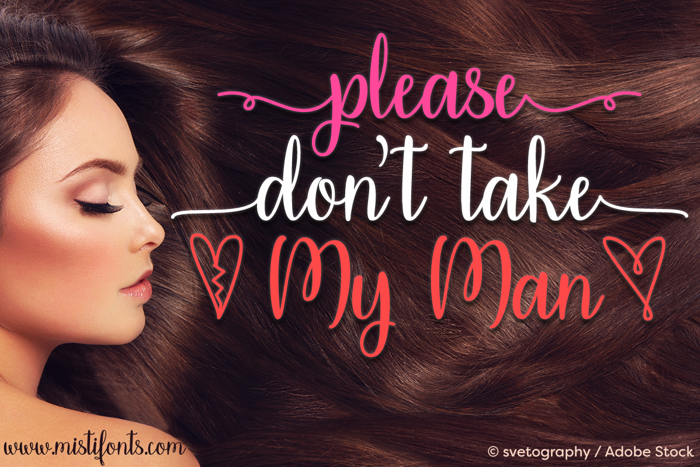
Please Dont Take My Man Font
Special Symbols:
Type * (asterisk) for the heart
Type \ (backslash) for the broken heart
Type [] (brackets) for the curly swirls
Type () (parentheses) for the swirls